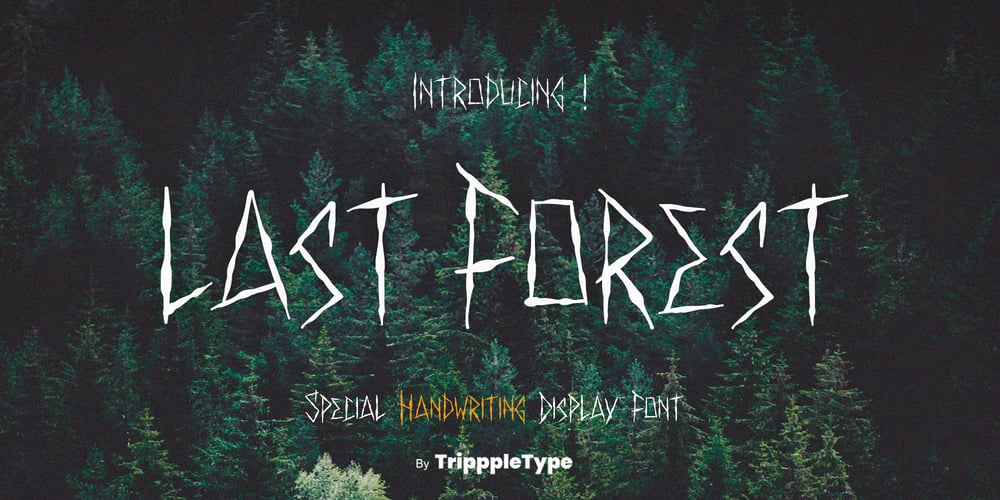
Last Forest Handwritten Font Family was designed by Kang Nur and published by TripppleType. Last Forest Handwritten contains 1 styles and family package options. Immerse yourself in the wild with Last Forest, a handwritten font that captures the essence of nature’s beauty. Ideal for projects that need an organic, untamed vibe, this font works wonders for outdoor-themed content, music lyric videos, and captivating story posts. Its rugged texture and raw style make it stand out, bringing your creative ideas to life in a bold, natural way.Harness the power of nature with Last Forest. Download now and give your projects a wild, adventurous edge that will leave a lasting impression.